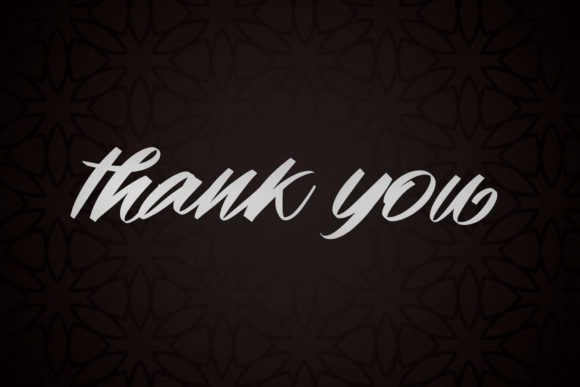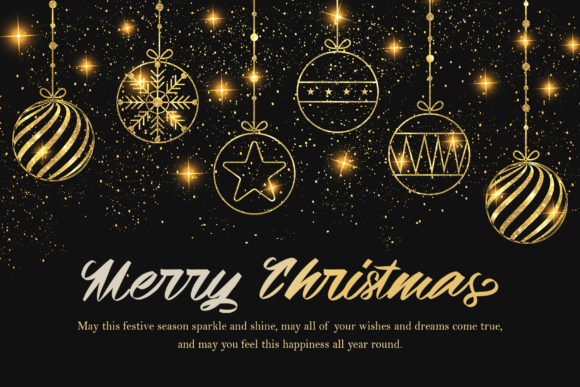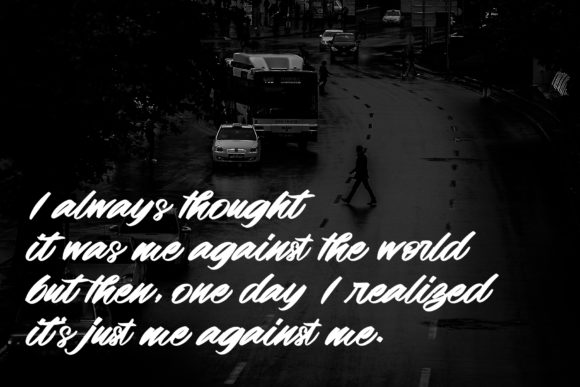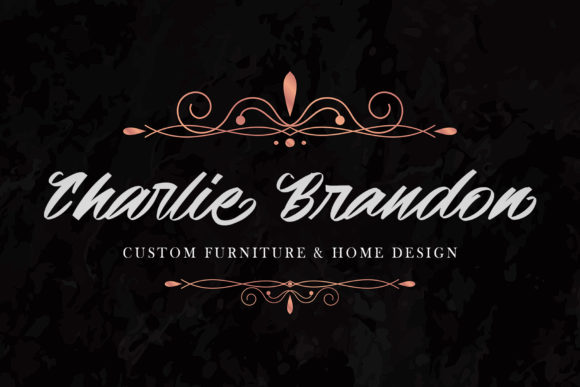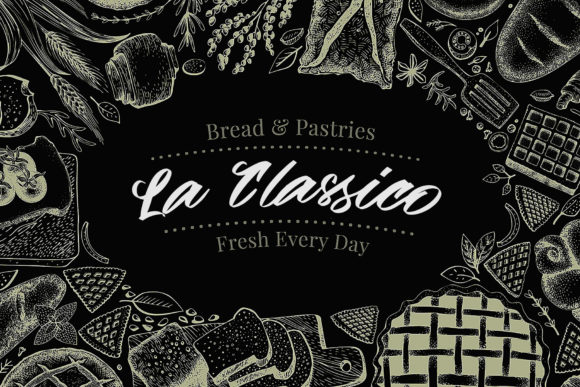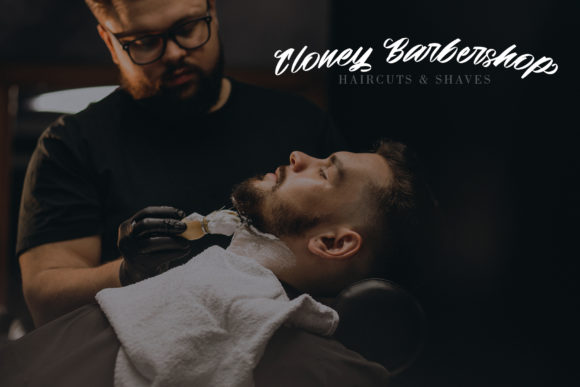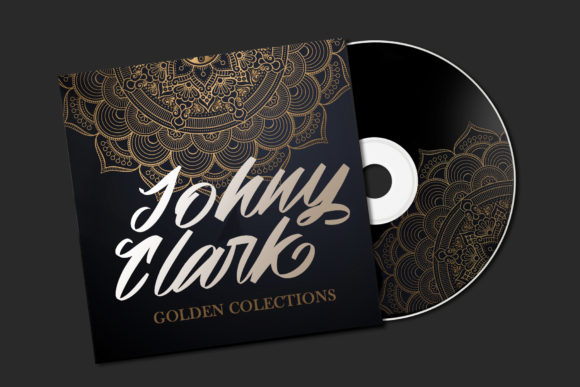
Sheepfold Font
About Sheepfold Font
Sheepfold is a natural handwritten font, featuring an incredibly elegant feel and a stunning brush texture. It is the perfect font for making original and outstanding designs. This font is PUA encoded which means you can access all of the glyphs and swashes with ease!